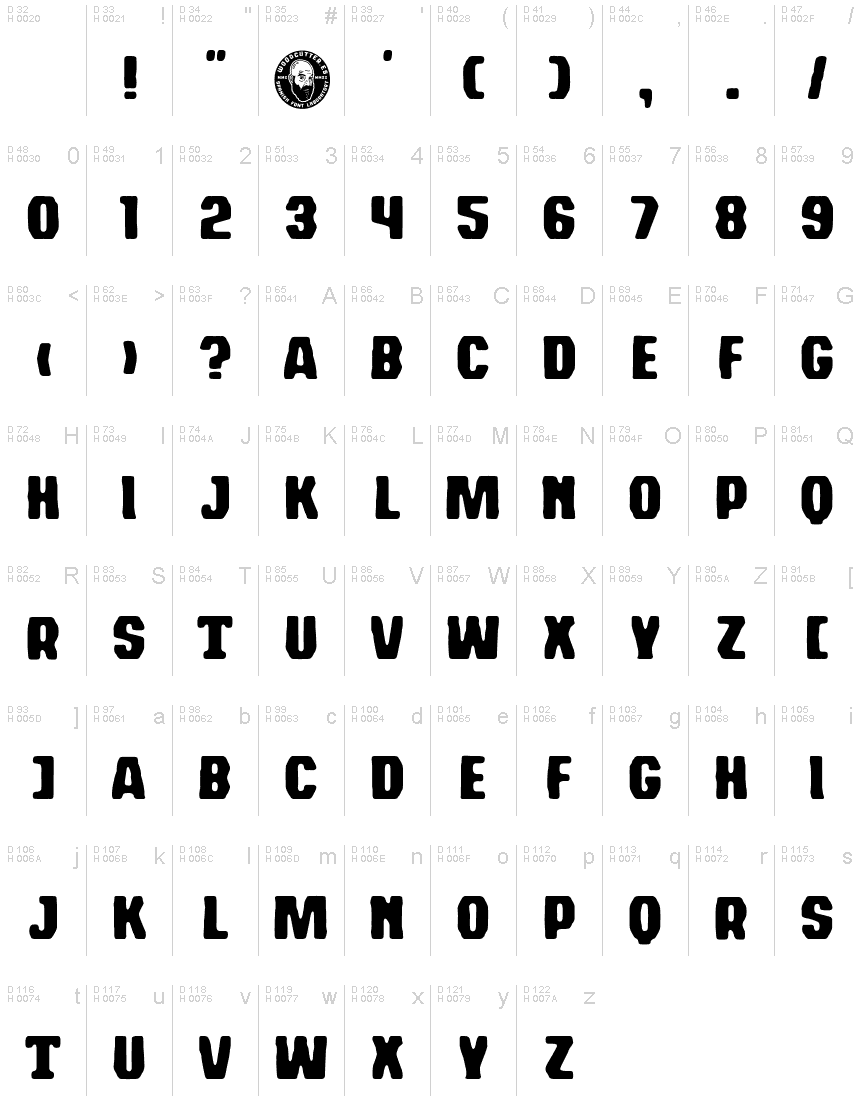
easy tormenta
Easy Tormenta, designed by Woodcutter, is a captivating display font that adds a touch of rustic charm to any project. Its eroded style exudes personality and character, making it perfect for vintage-inspired designs or grunge-themed artwork. With its extra-bold weight, Easy Tormenta demands attention and creates a striking visual impact. The semi-condensed width allows for efficient use of space without sacrificing legibility.
Whether you're designing album covers, posters, or edgy branding materials, Easy Tormenta will effortlessly convey a sense of raw energy and ruggedness to your creations.